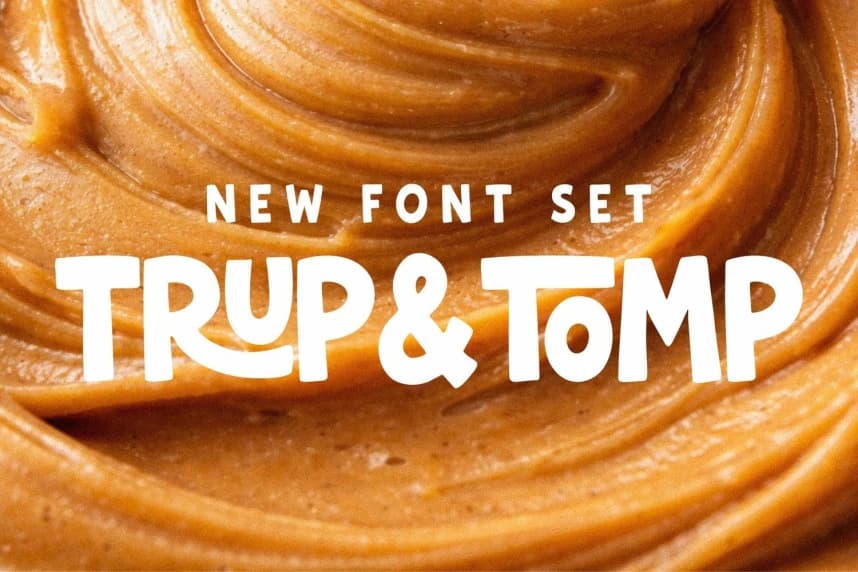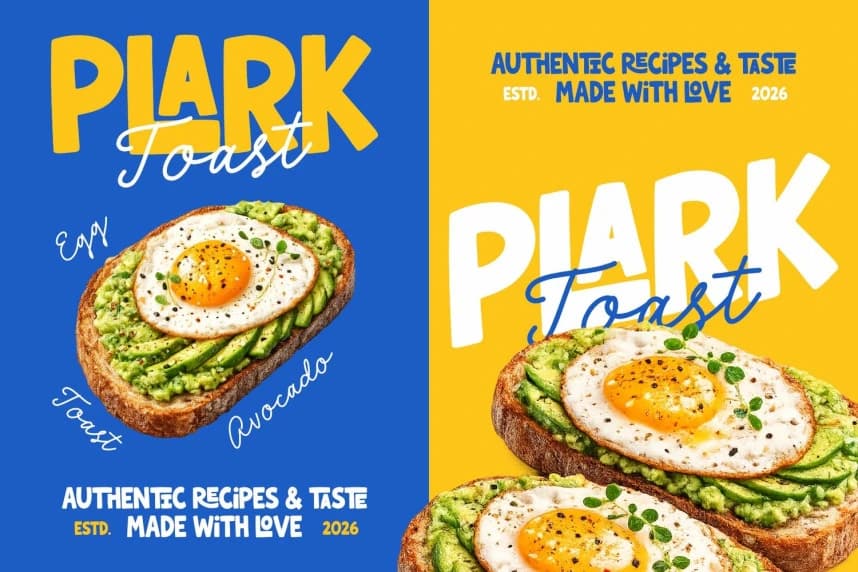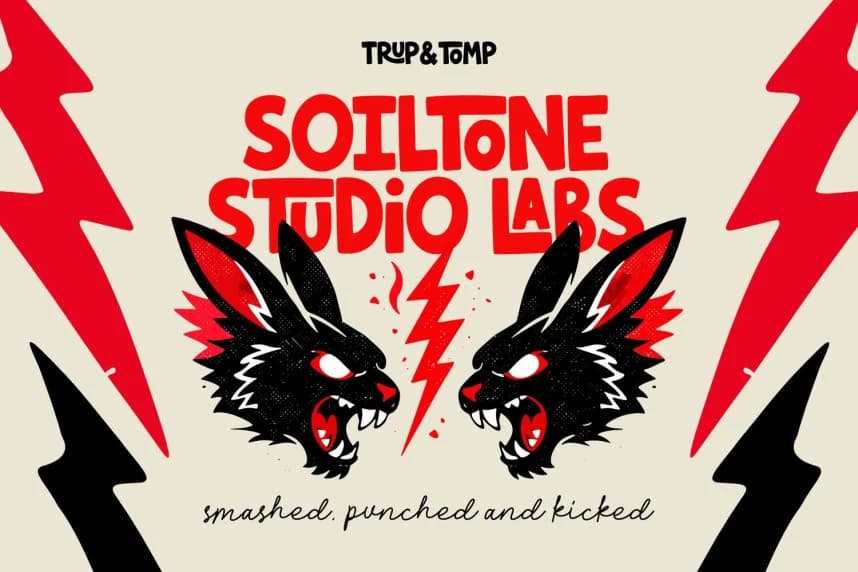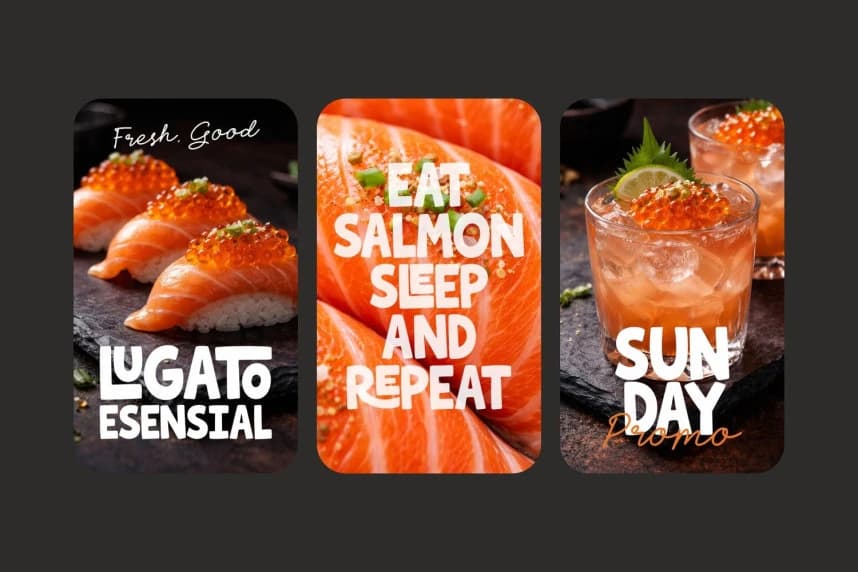
Trup & Tomp Font
Trup & Tomp Font is a playful font duo designed to bring bold personality and warm character into your creative projects. This versatile pair combines a chunky, hand-drawn display sans with a smooth handwritten script, making it perfect for eye-catching headlines